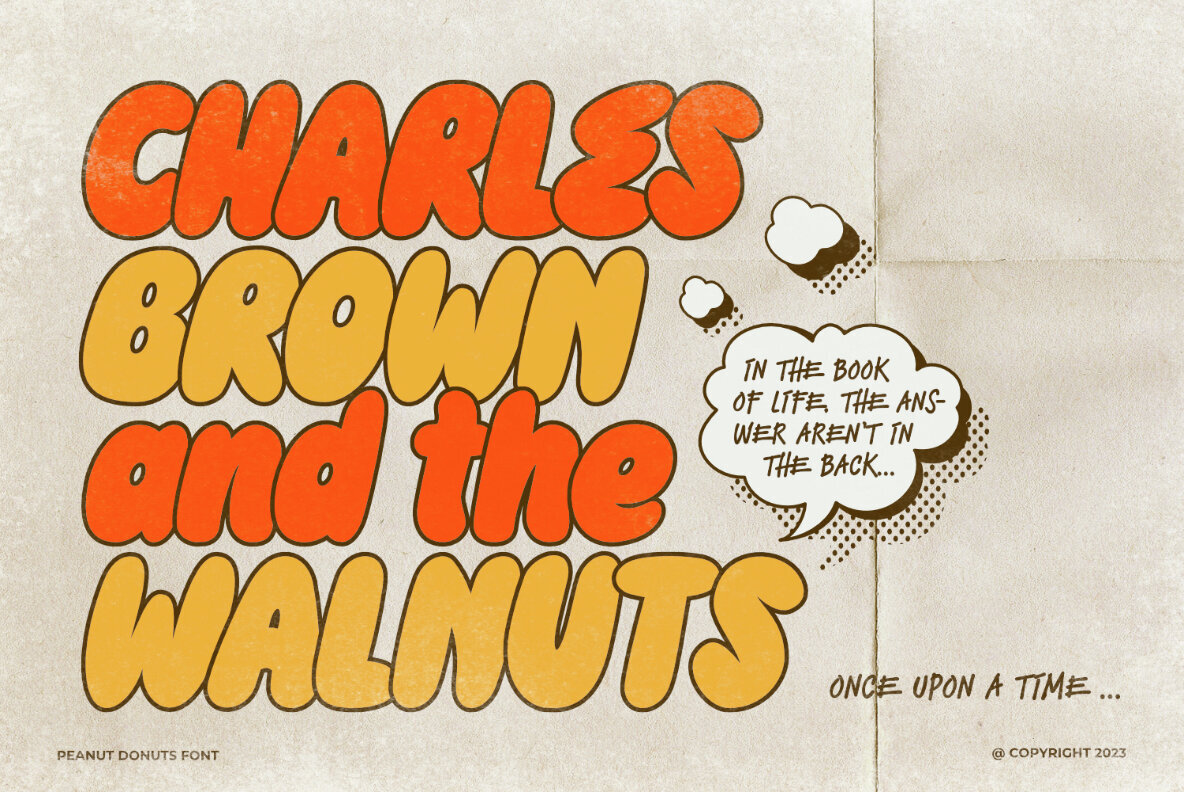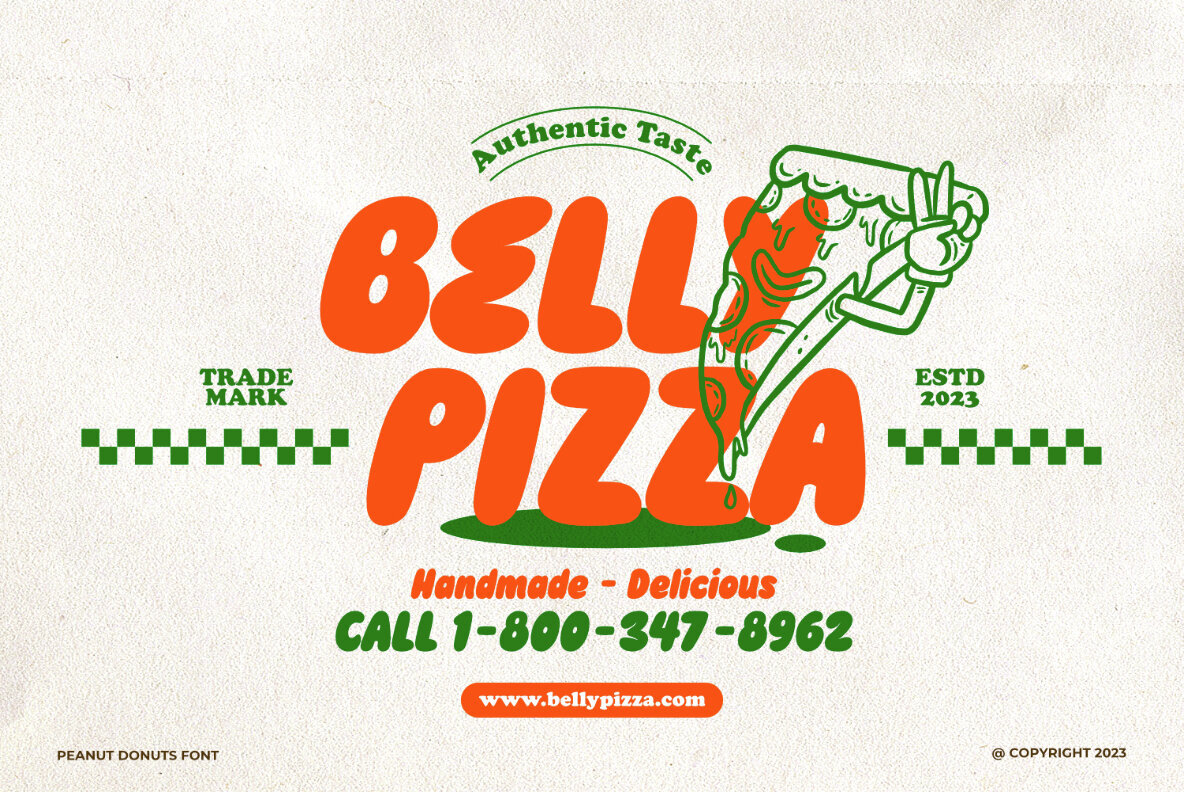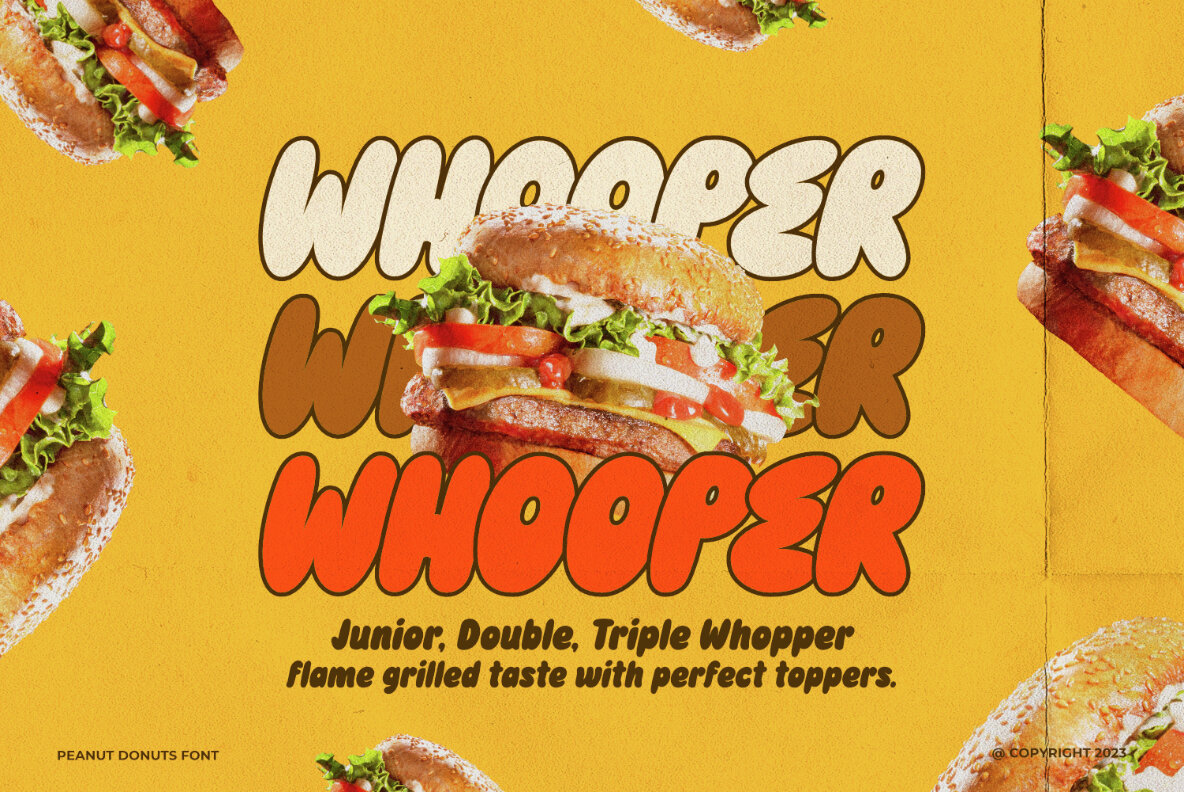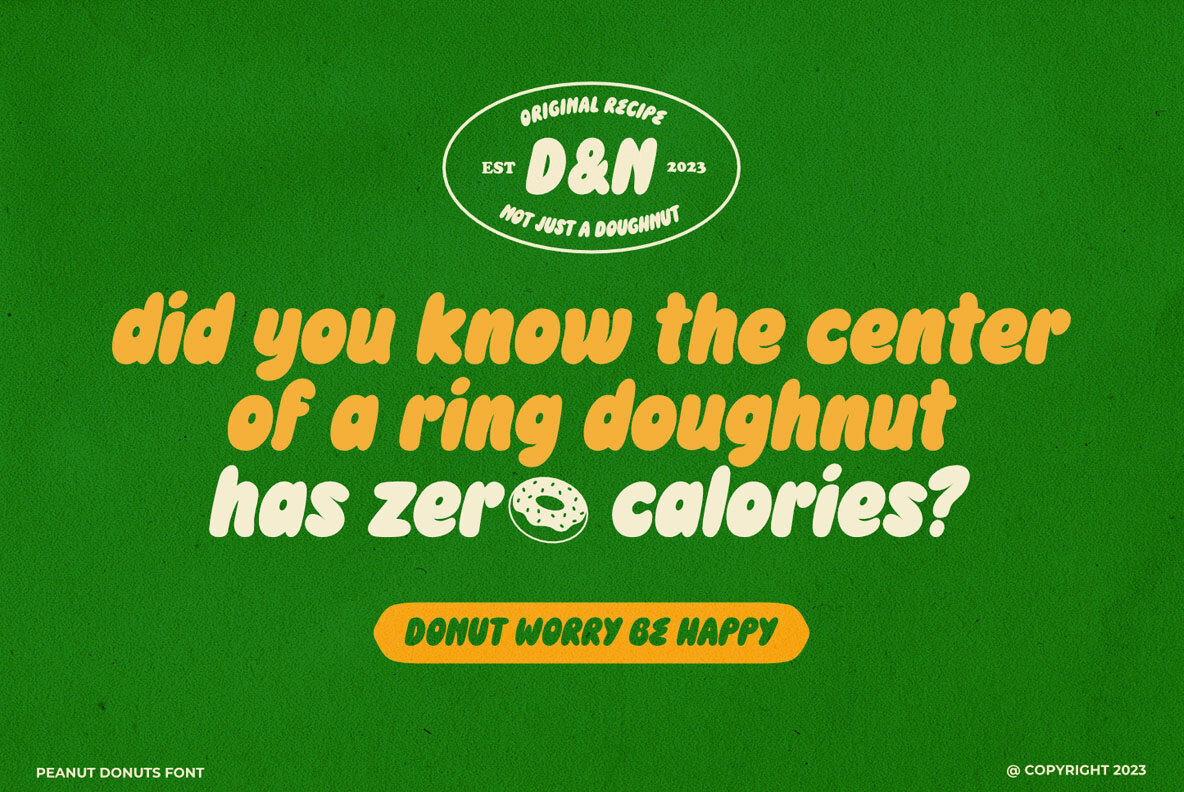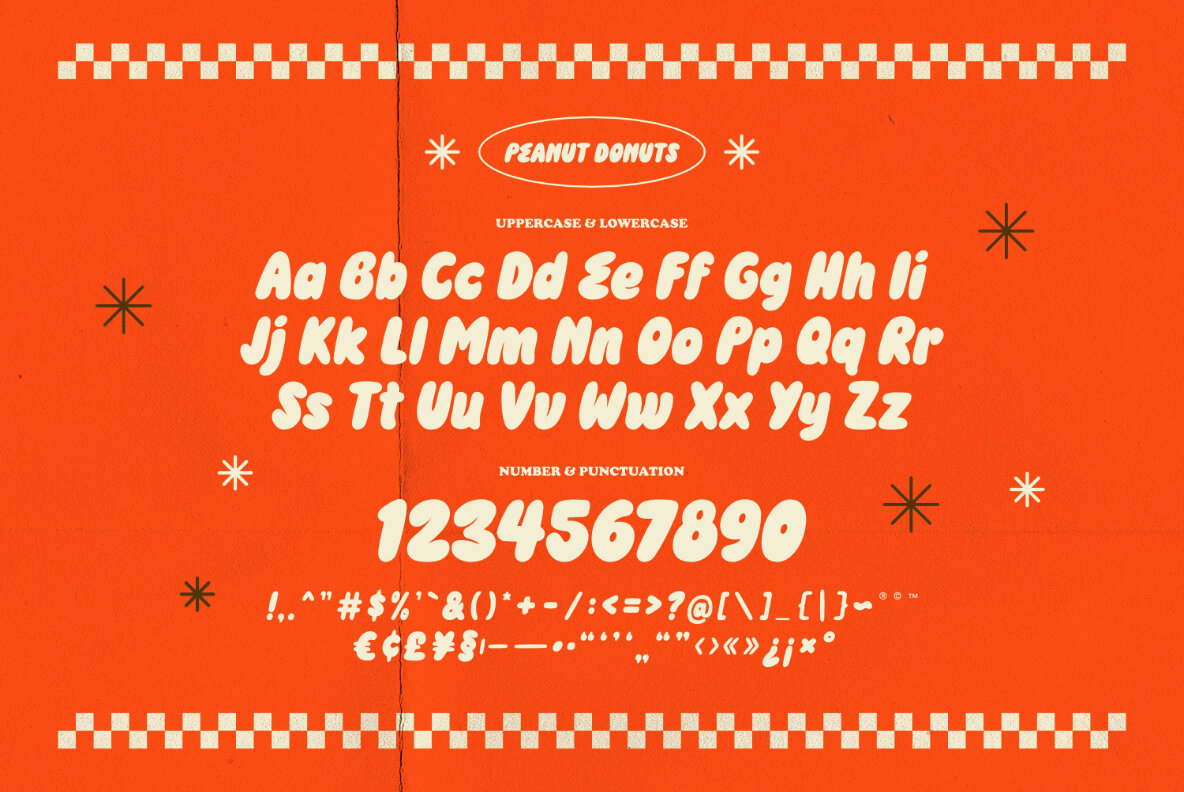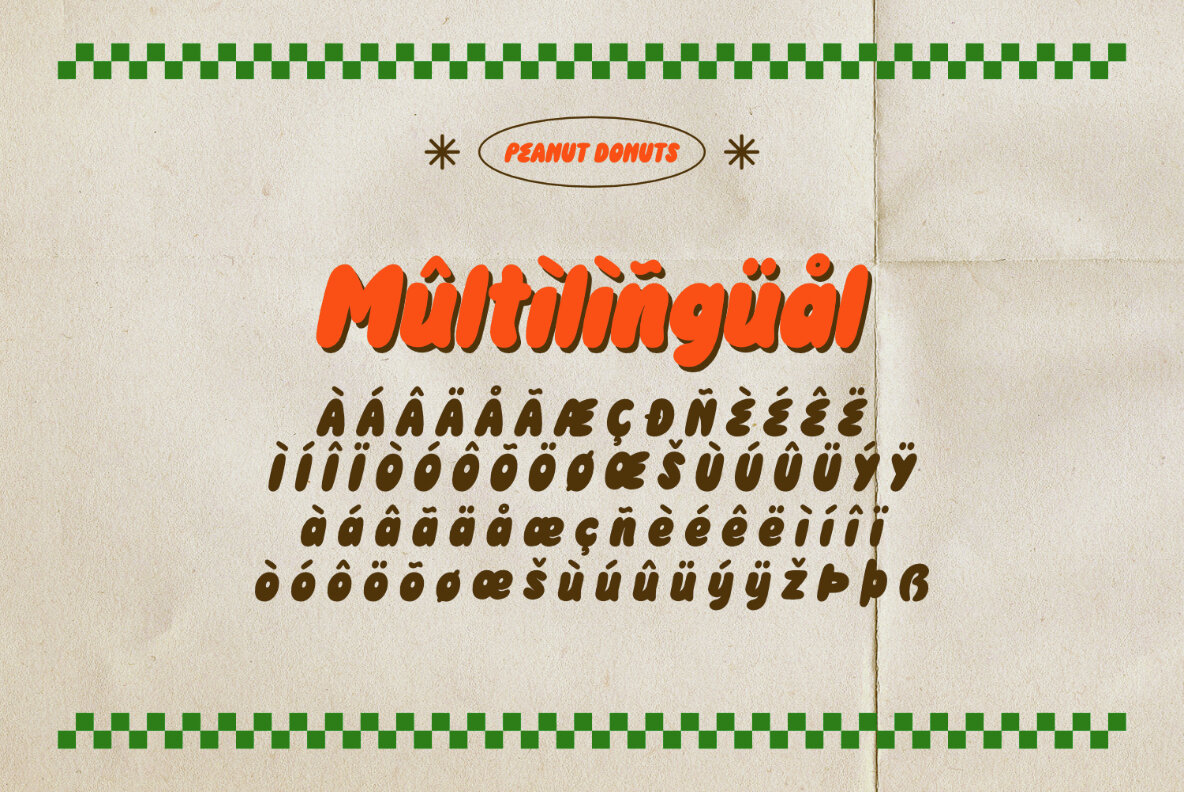
Peanut Donuts Font
Peanut Donuts
Proudly Present Peanut Donuts - Retro Bubble Type, created by ikiiko. Peanut Donuts is a font that perfectly encapsulates nostalgia, you can travel back in time to a time of delectable delicacies and mouthwatering delights. This retro bubble font, which was meticulously crafted, is the ideal option for your vintage products. The Peanut Donut blends your packaging, labeling, and advertising with delectably nostalgic appeal to bring the happiness and enjoyment of the past to the present. It instantly conjures up images of vintage cafes, soda fountains, and recognizable food trucks with its rounded corners and bubbly shapes. This typeface is perfect for an vintage stuff, retro poster layout, children book, comic, packaging, food & beverages and also good for quotes, or simply as a stylish text overlay to any background image. What's included?